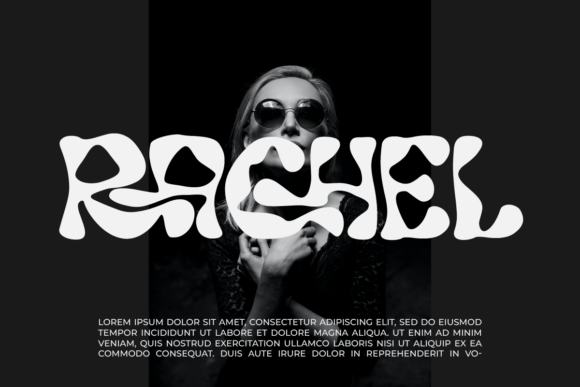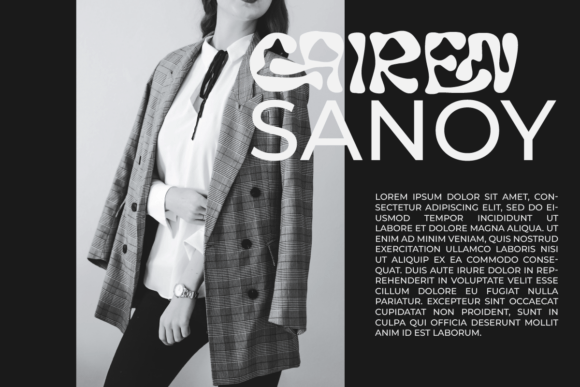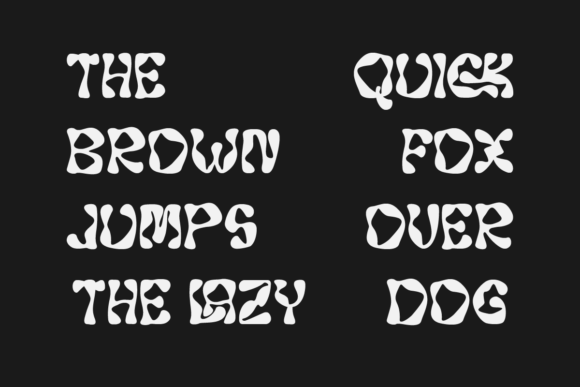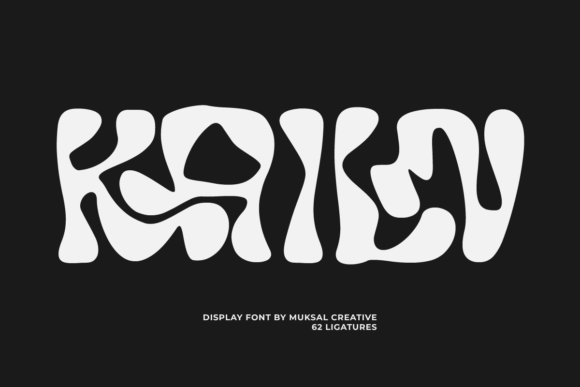
Introduction to Kailn Font
Kailn is an incredibly quirky and sweet display font.
Whether you use it for cartoon related designs, children games or just any creation that requires a lovely touch, this font will be an amazing choice .
Kailn Font offers exceptional quality and versatility, making it a valuable addition to your design toolkit. Whether you’re creating for personal projects or commercial use, Kailn Font delivers professional results.